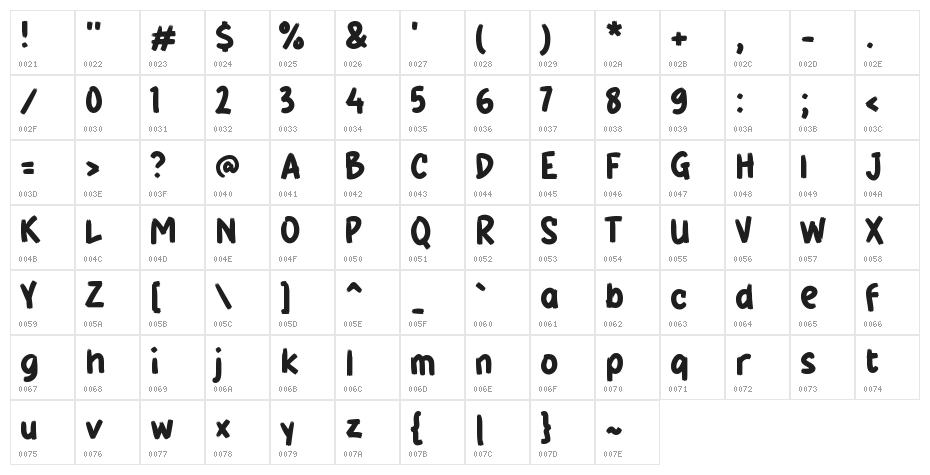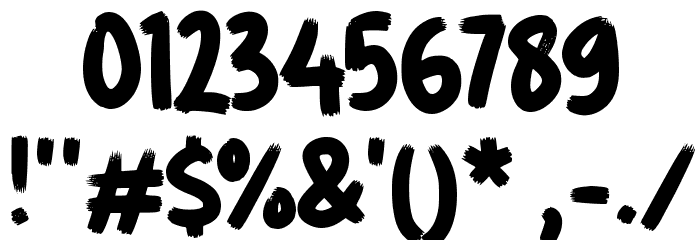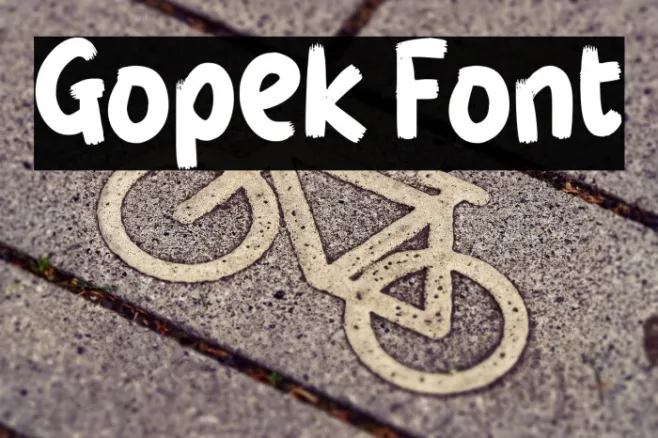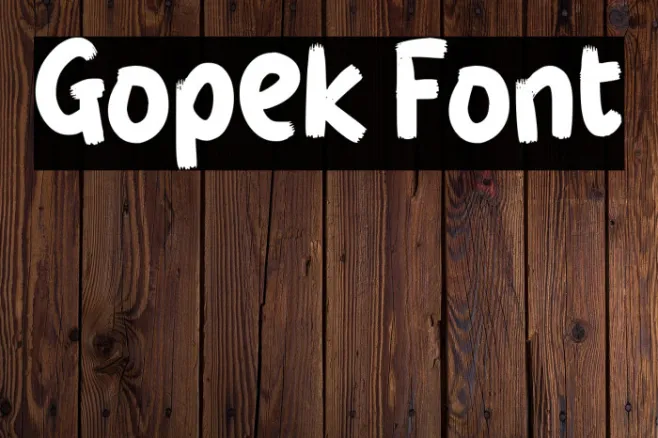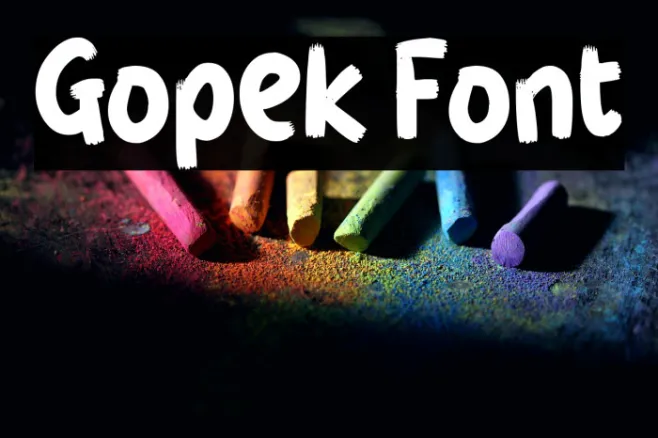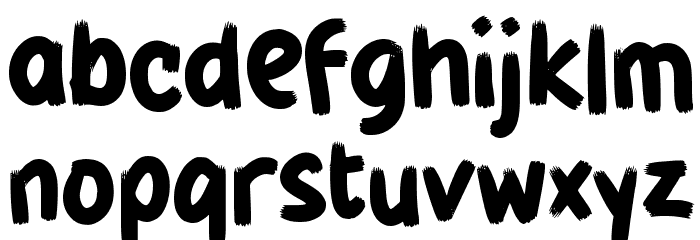
Gopek Font
Gopek Description
This font exhibits a bold and expressive style, characterized by its thick, brush-like strokes that convey a sense of energy and dynamism. The letters are slightly irregular, adding a handcrafted feel that enhances its visual appeal. The uppercase and lowercase letters maintain a consistent weight, while the numerals and special characters seamlessly integrate into the overall design. The font's playful and informal nature makes it ideal for projects that require a touch of creativity and personality.